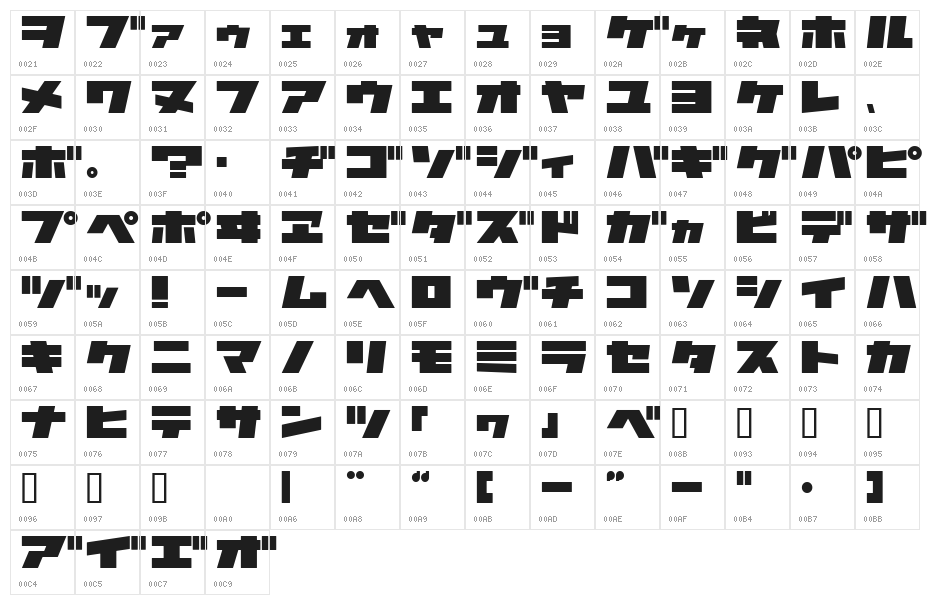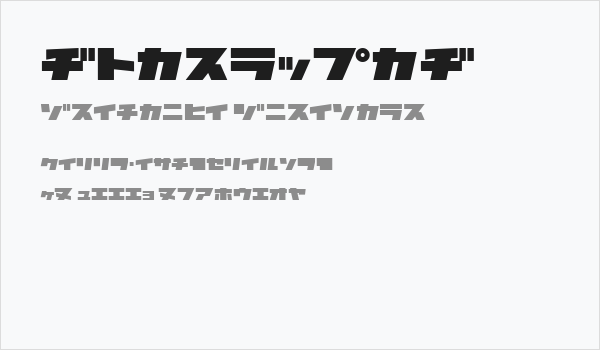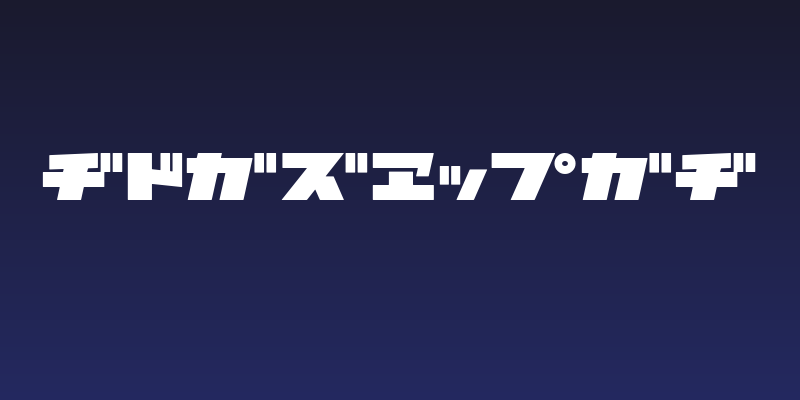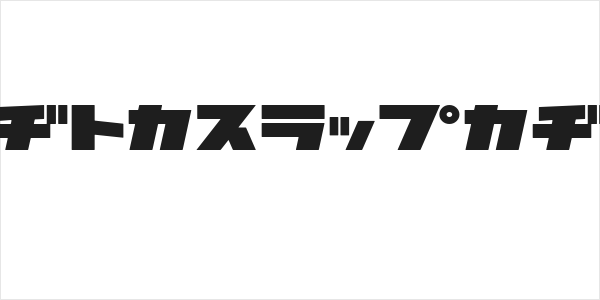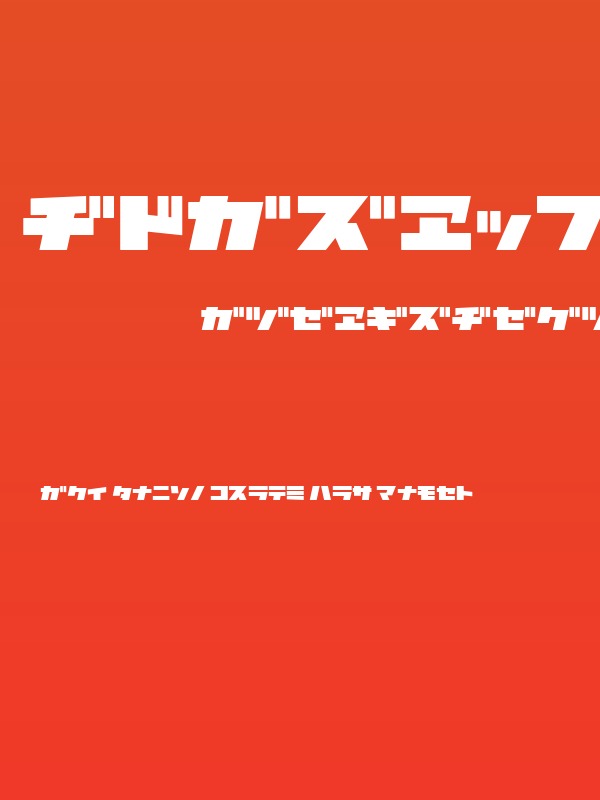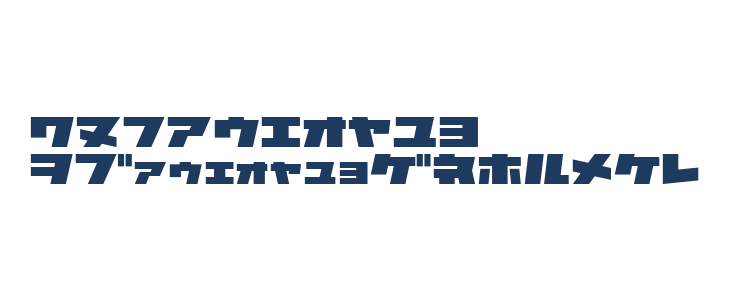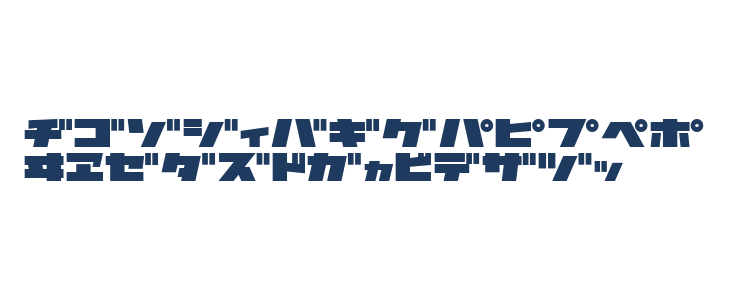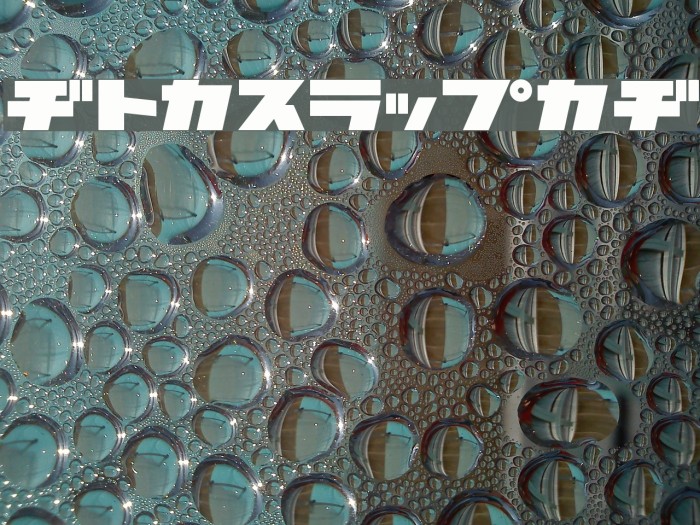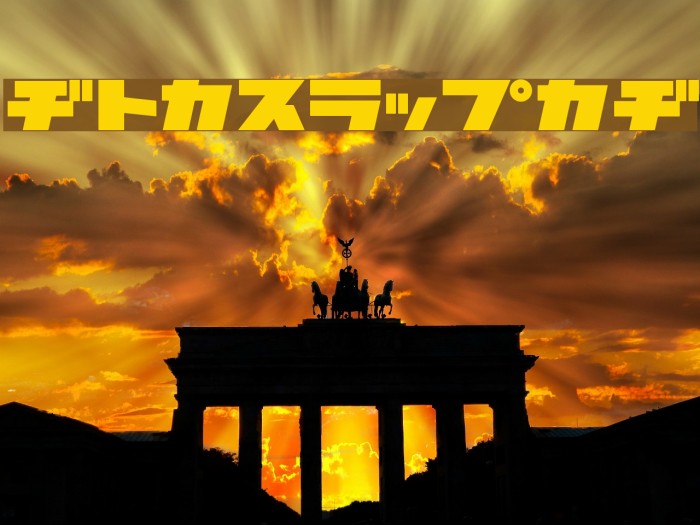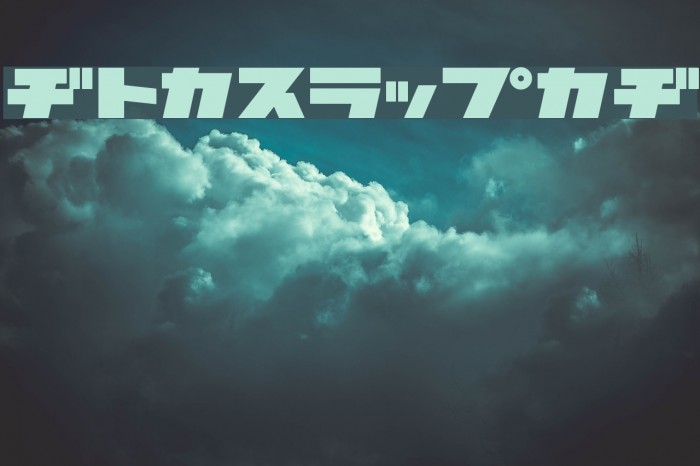
AstroZKtA Font
AstroZKtA Description
This font features bold, geometric characters with a strong presence. The strokes are thick and uniform, creating a sense of stability and impact. The characters are tightly spaced, enhancing the boldness and making it ideal for attention-grabbing designs. The style is modern and assertive, suitable for projects that require a strong visual statement. Its clean lines and lack of ornamentation give it a contemporary feel, while the consistent stroke weight ensures readability even at smaller sizes.
| Proposed Projects | Ideal for headlines, posters, branding, and any design needing a bold, impactful typeface. |